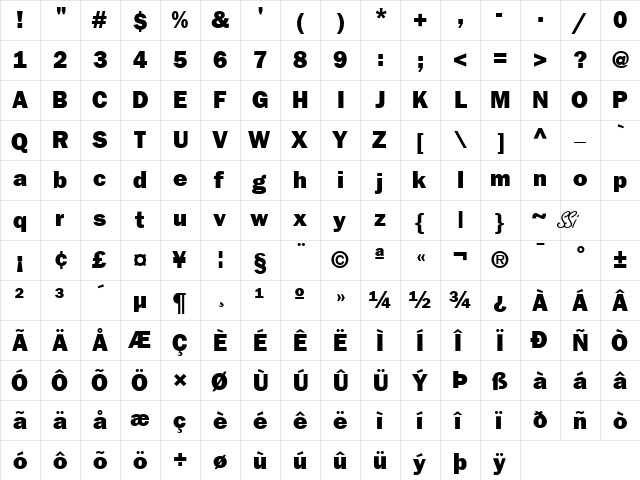
Franklin Gothic Black SSi Black
Design Context for Franklin Gothic Black SSi Typeface
Franklin Gothic Black SSi takes a clean, functional approach — its unadorned letterforms prioritise legibility and work reliably across screen and print environments.
Font Pairing: Works well alongside a characterful serif or display font that can carry the expressive load while Franklin Gothic Black SSi handles the functional copy.
Pro Tip: Pair Franklin Gothic Black SSi with a display or serif font for headlines — its neutral character makes it an excellent supporting player in complex typographic systems.